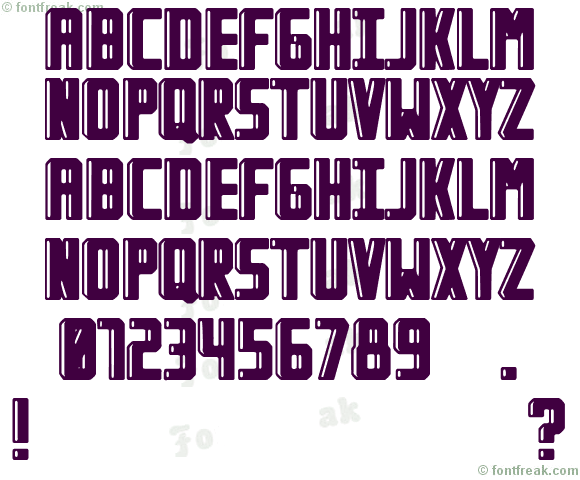
Miss Order
About Miss Order
The Miss Order font by woodcutter Manero is a striking display typeface that captures attention with its bold, geometric design. As a decorative font, it features thick stroke weights and a unique character structure that sets it apart from traditional typefaces. The overall aesthetic is modern yet playful, making it an excellent choice for projects that require a touch of creativity and flair. The contrast between the thick and thin elements adds depth, while the slightly condensed letterforms provide a sense of cohesion and balance.
Miss Order is particularly well-suited for a variety of applications. Its robust appearance makes it ideal for creating eye-catching movie posters that demand attention, while its playful nature lends itself beautifully to children's book covers and playful branding projects. Additionally, this font works wonderfully for restaurant menus, especially those seeking a trendy, urban vibe. Graphic designers and small business owners alike will find that Miss Order can elevate their designs, making it a versatile addition to any creative arsenal.
The target audience for this font includes graphic designers looking for distinctive typefaces, as well as small business owners who want to create an unforgettable brand identity. Content creators aiming to produce visually appealing materials will also appreciate how Miss Order can enhance their work.
In a crowded marketplace of fonts, the Miss Order font stands out due to its unique blend of boldness and playfulness. Its distinct visual characteristics allow for a wide range of creative expression, making it a must-have for anyone looking to make a lasting impression. For those interested, the Miss Order font free download is available, providing an easy opportunity to incorporate this stunning typeface into your next project.